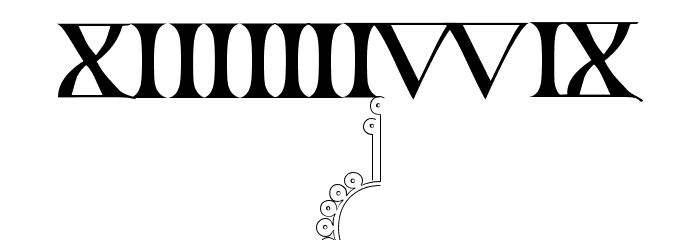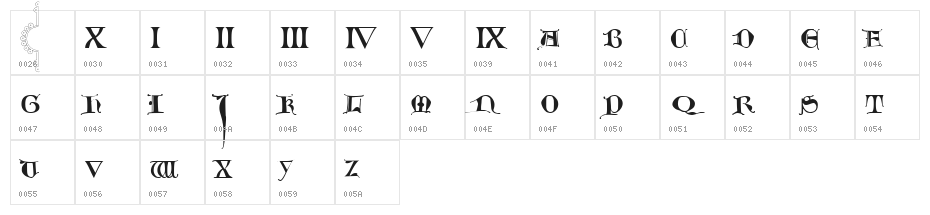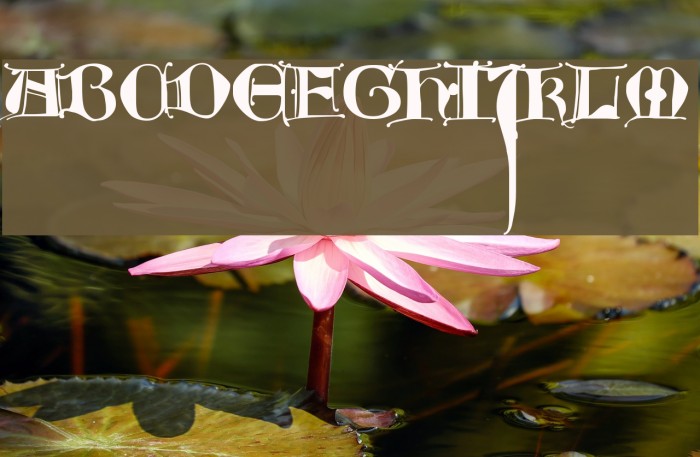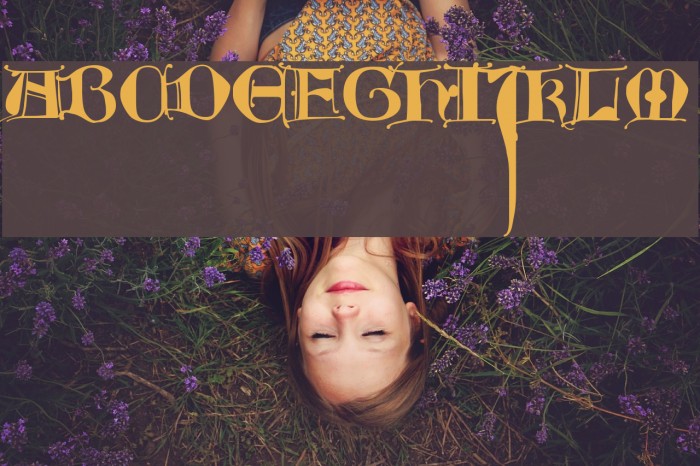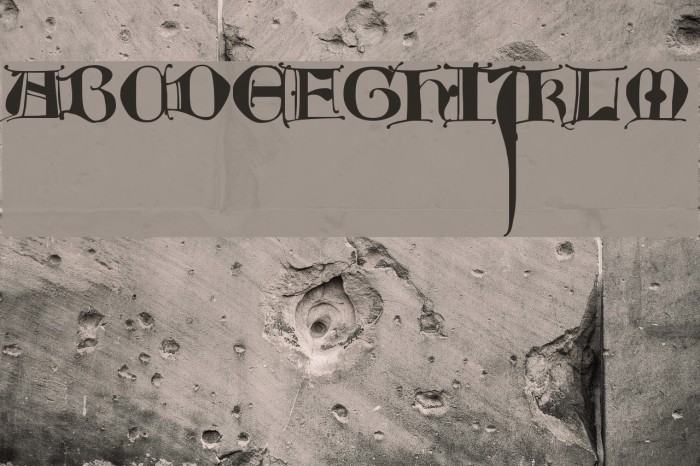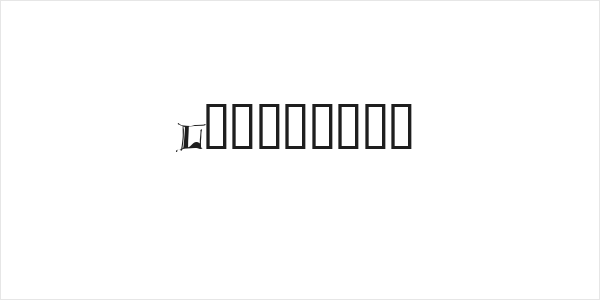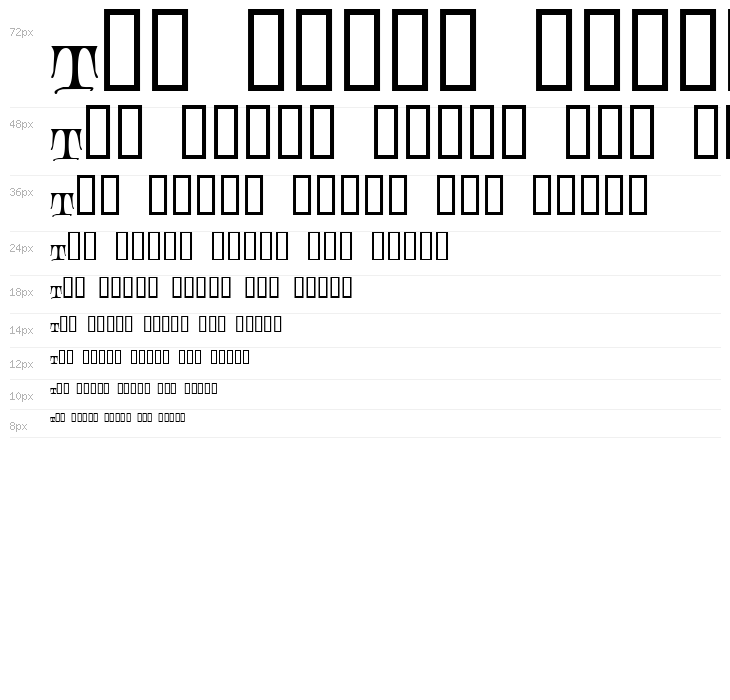
Lombardoc Font
This font is a striking example of Blackletter style, characterized by its intricate and ornate letterforms. The uppercase letters feature sharp, angular lines with elaborate flourishes and decorative elements, giving them a medieval and gothic appearance. The lowercase letters maintain the same level of detail, with consistent stroke widths and a strong vertical emphasis. The numerals are equally decorative, with unique embellishments that enhance their visual appeal. This font's overall design is reminiscent of historical manuscripts and calligraphy, making it ideal for projects that require a touch of elegance and tradition.
| Proposed Projects | Ideal for historical documents, wedding invitations, book covers, and branding that requires a classic and sophisticated look. |